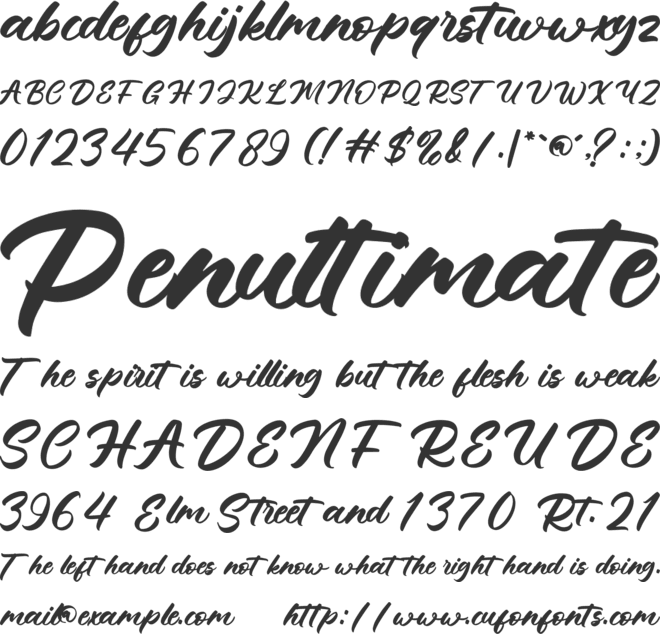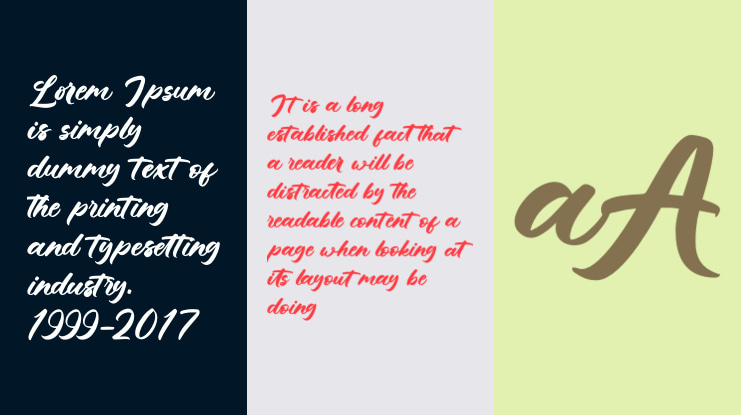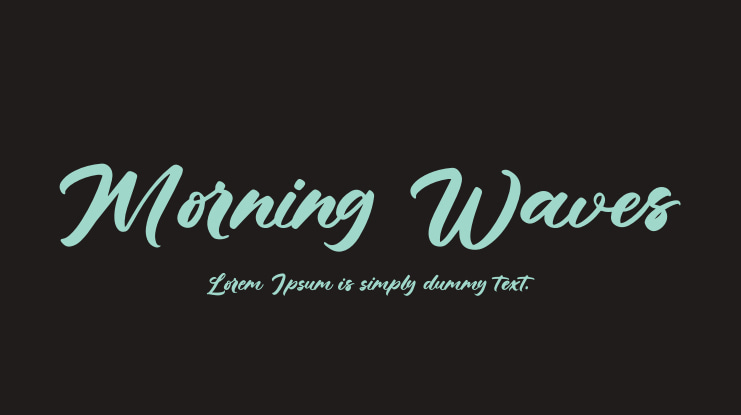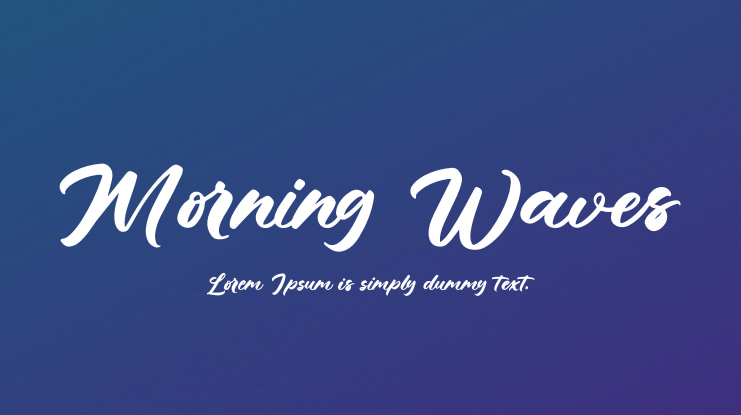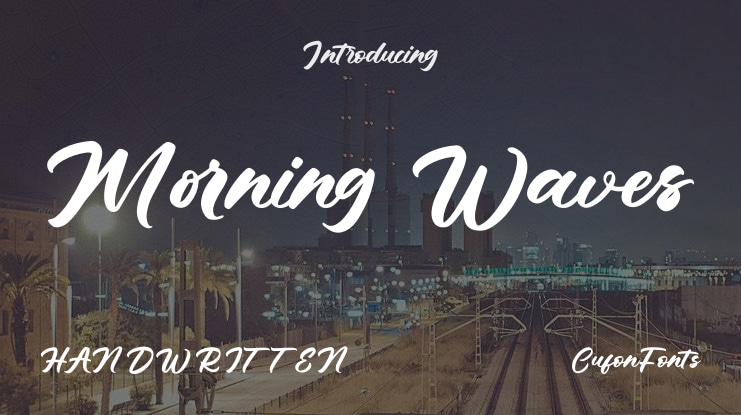
Morning Waves Font
Experience the refreshing essence of the early morning with Morning Waves Font. This font draws its inspiration from the gentle breeze that comes before a rainfall. With its cute and bold aesthetic, Morning Waves effortlessly captures a charming vibe. It is designed to be versatile, making it the perfect choice for logos, packaging, brochures, cover titles, fashion statements, and enchanting wedding invitations. Infuse your designs with the lively and beautiful touch of Morning Waves, bringing a vibrant and tranquil feel to every project.
One of the great features of this font is that it is PUA encoded, which means you can easily access all the amazing glyphs and ligatures it offers!